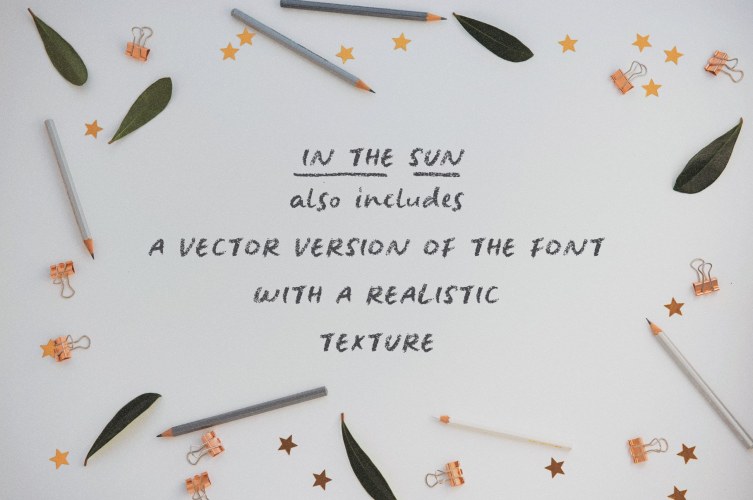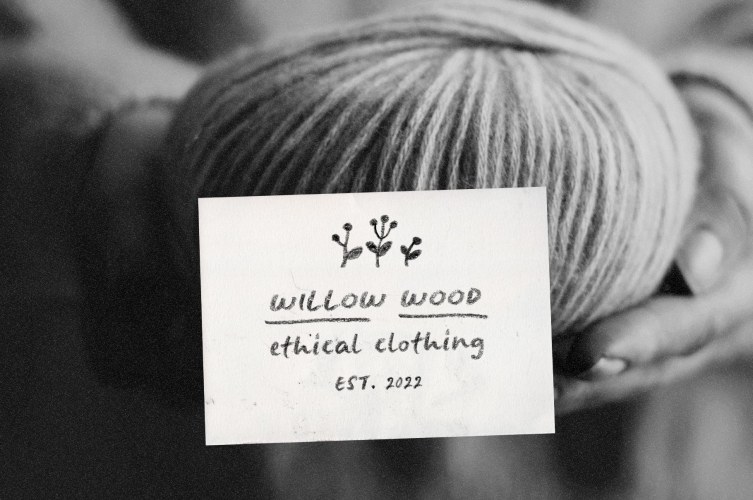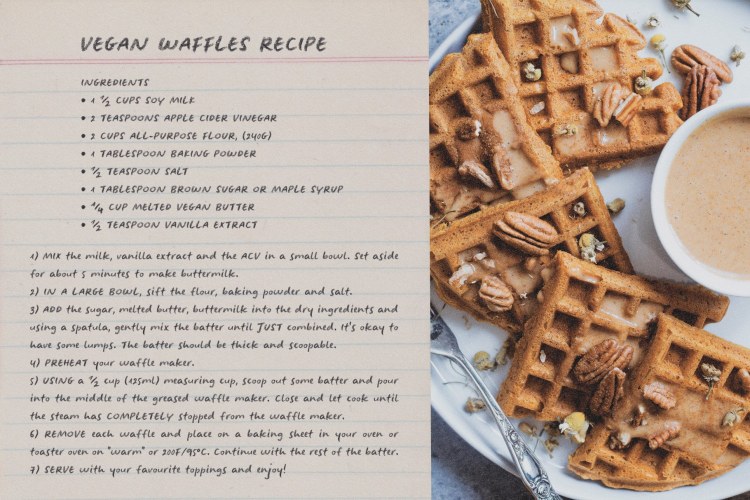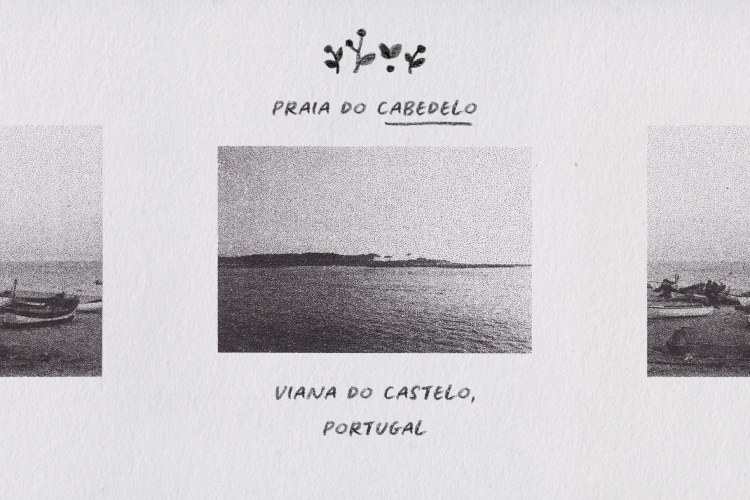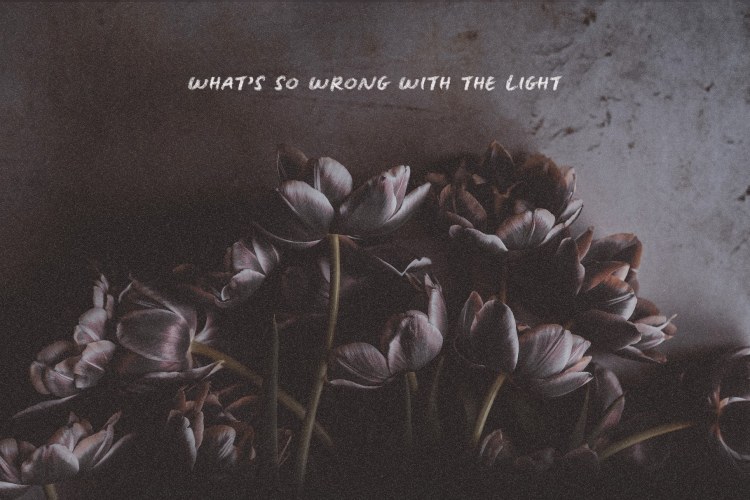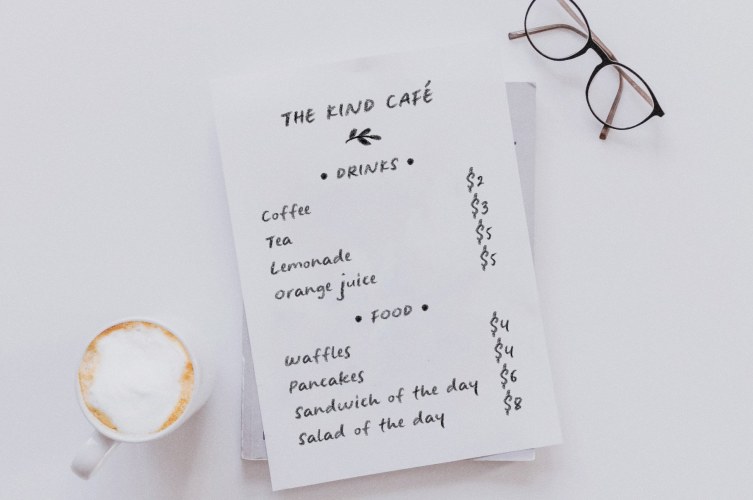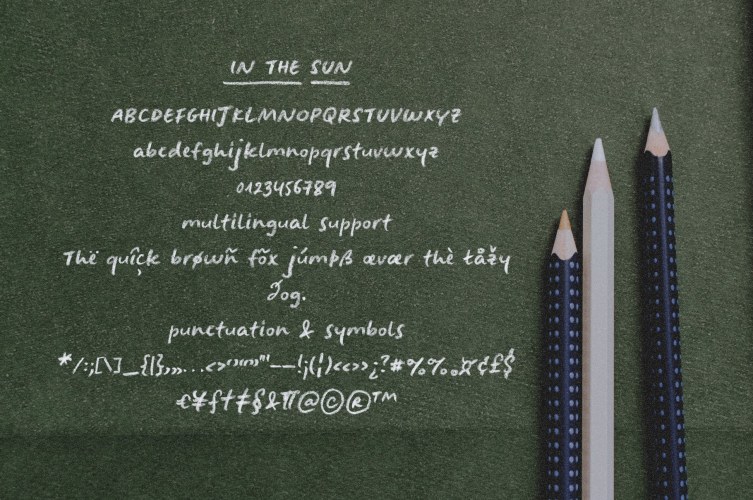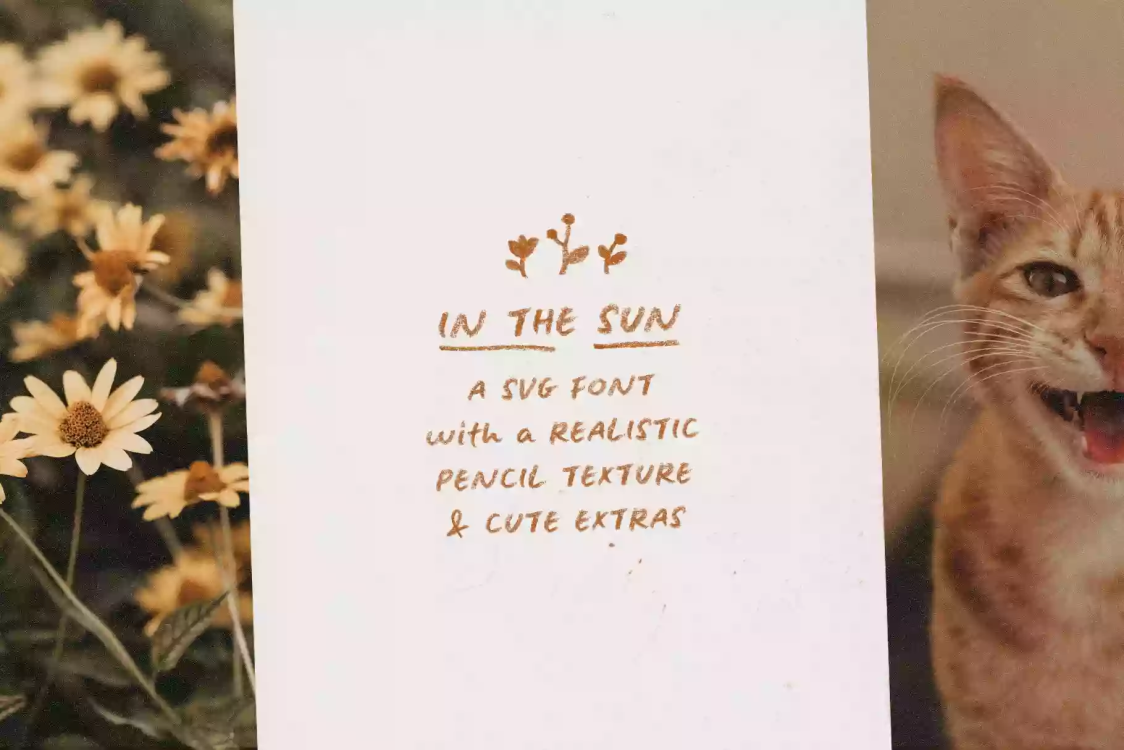
In The Sun Handwritten SVG Font
In The Sun is a SVG font made from pencil handwriting and doodles. The SVG format allows for the texture of the pencil to be captured in a realistic way. In The Sun look…
In The Sun is a SVG font made from pencil handwriting and doodles. The SVG format allows for the texture of the pencil to be captured in a realistic way. In The Sun looks best at smaller sizes and will also look great in all caps texts. Use In The Sun in designs such as postcards and notes, posters, logotypes, social media posts, branding and packaging.
In The Sun handwritten font
In The Sun Extras font, with underlines, circles, arrows, and small floral illustrations in:
Where In The Sun Handwritten SVG Font works best
Personal branding & signatures
In The Sun Handwritten SVG Font adds an authentic, human signature to portfolios, coaching brands and creator logos.
Cards, journals & planners
Ideal for greeting cards, printable planners and scrapbook layouts.
Food & café menus
Handwritten styles like In The Sun Handwritten SVG Font make menus and chalkboard-style signage feel friendly.
What is In The Sun Handwritten SVG Font good for?